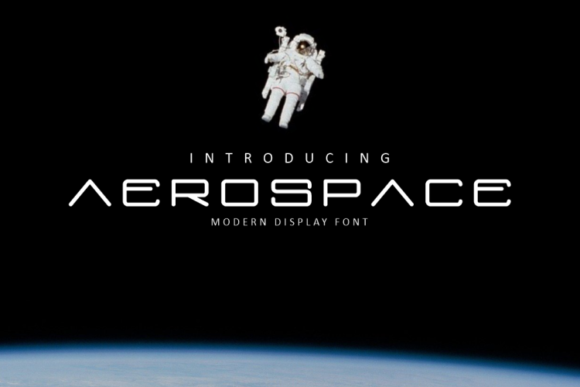
A New Dimension in Typography
Have you ever stared at a sleek sports car, an advanced gadget, or a high-tech gadget and thought, “Wow, the design is so sharp and futuristic?” That’s exactly the kind of style we aimed to capture in our Aerospace Font, a modern typographic creation inspired by the trends of technology, automotive, and sports.
Aerospace Font is a carefully crafted font designed for text display purposes, perfect for making a statement in your design project. Whether you’re building a website or creating a layout, this font is sure to elevate your visual identity and leave a lasting impression on your audience.
As a designer, you’ll appreciate the versatility and value that Aerospace Font brings to your work. Its clean lines, modern feel, and high-contrast features make it an ideal choice for headers, titles, and body text alike. With Aerospace Font, you’ll be able to create designs that are both stylish and effective, setting your work apart from the rest.
Aerospace Font Key Features
- Unique Character Set: The Aerospace Font features a unique set of characters, including custom-designed glyphs and symbols, to provide a distinctive and futuristic look.
- Font Weight and Style: The font is available in multiple weights, including light, regular, bold, and italic, to provide flexibility in design and layout.
Aerospace Font Review
Overall, I think Aerospace Font is a great addition to any design project. ✨ Its unique blend of modern and futuristic elements makes it perfect for any space-themed or tech-related project.
Here are some of the things that I think work well:
- Its bold and confident look makes it perfect for headings and titles.
- The font is highly legible, even at smaller sizes.
- The font supports a wide range of languages, making it a great choice for international projects.
- ⚠️ The font may not be suitable for projects that require a more traditional or classic look.
- ⚠️ Some users may find the font too futuristic or overwhelming.
- ⚠️ The font may not be compatible with older versions of certain software or operating systems.
Overall, I think Aerospace Font is a great choice for designers who want to add a touch of modernity and futurism to their projects. It’s a versatile font that can be used in a wide range of contexts, from logos and branding to web and print design.
Use the Aerospace font to create a futuristic and high-tech look.
Pair the font with a bold, metallic color scheme to enhance its effect.
Use the font in titles and headings to create a sense of drama and importance.
Aerospace font is commonly used in:
Space-themed designs and graphics.
Science fiction and futuristic concepts.
High-tech and innovative branding and marketing materials.
Alternatives to Aerospace Font
Open Sans is a clean, modern sans-serif font designed by Steve Matteson. It is ideal for digital products, websites, and apps. Open Sans is a versatile font suitable for body text, headings, and titles. Compared to Aerospace Font, Open Sans is more modern and has a neutral tone, making it a great choice for a wide range of designs.
Montserrat is a sans-serif font inspired by urban typography. It is perfect for modern designs, especially those related to technology and innovation. Montserrat has a strong, geometric feel that makes it stand out from Aerospace Font. While Aerospace Font has a more futuristic feel, Montserrat is ideal for designs that require a bold, urban aesthetic.
What is the recommended line height for the Aerospace Font?
The recommended line height for the Aerospace Font is 1.2 to 1.5 times the font size. This range provides optimal readability and balance between aesthetics and legibility. For digital displays, a line height of 1.5 times the font size is recommended for clear visibility.